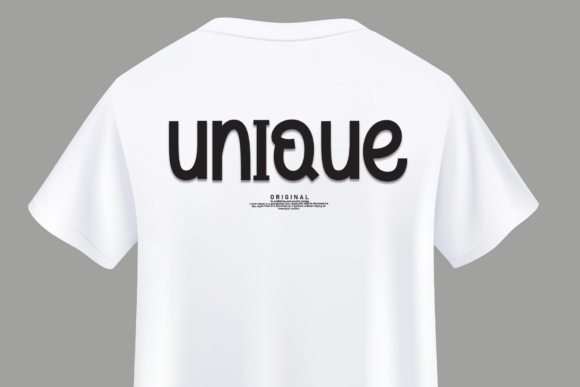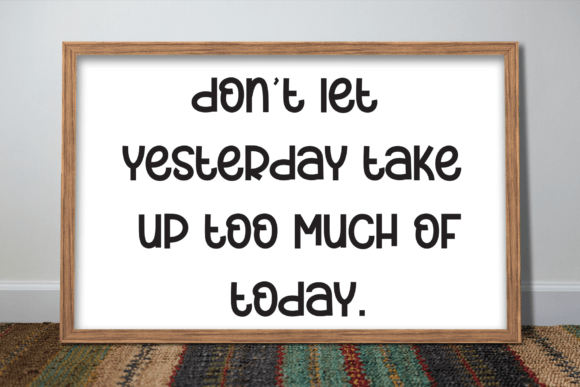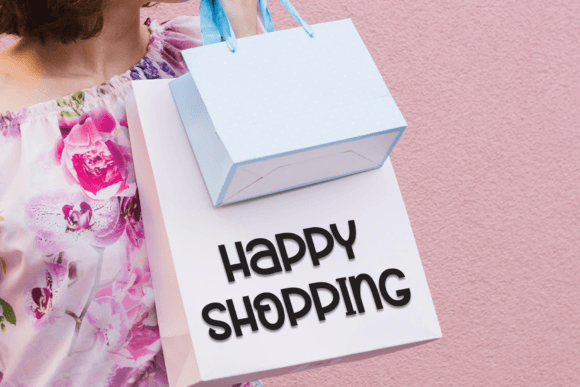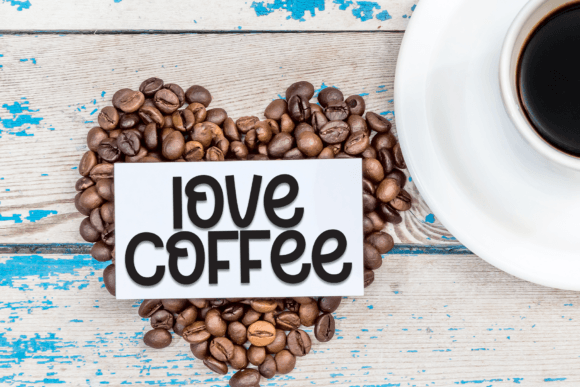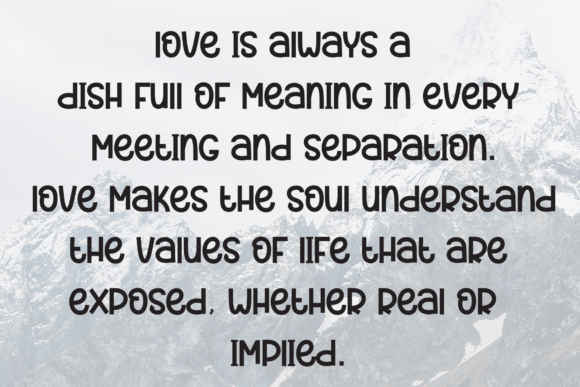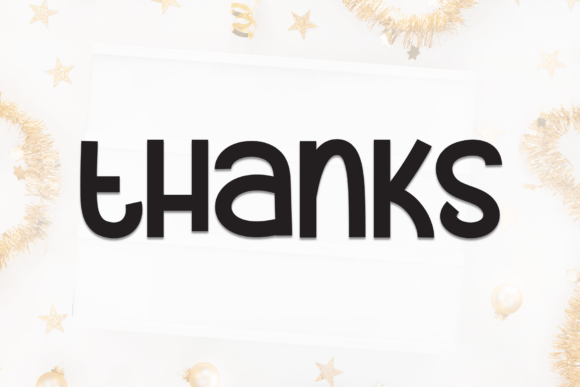
Introducing the Happy New Year Font: A Charming Handwritten Display Font
Are you looking for a font that embodies the spirit of joy and friendliness? Look no further than the Happy New Year Font, a charming and whimsical handwritten display font that’s perfect for adding a touch of warmth and personality to your designs. With its delightful, fun essence, this font is ideal for crafting heartwarming wedding invitations, heartening cards, and any other design project that needs a zest of joy.
A Font that Brings Storytelling to Life
The Happy New Year Font is more than just a collection of letters – it’s a way to tell a story. Each letter is lovingly scripted to create an authentic, intimate feel that’s sure to captivate your audience. Whether you’re designing a wedding invitation, a greeting card, or a social media post, this font will help you connect with your audience on a deeper level. Its whimsical and playful design makes it perfect for projects that require a personal touch.
As a designer or crafter, you’re always on the lookout for fonts that can help you create unique and engaging designs. The Happy New Year Font is a versatile font that can be used for a wide range of projects, from digital designs to print materials. Its friendly and approachable design makes it perfect for:
Key Features of the Happy New Year Font
So what makes the Happy New Year Font so special? Here are some of its key features:
- Handwritten and whimsical design
- Delightful and fun essence
- Perfect for heartwarming and intimate designs
- Lovingly scripted letters for an authentic feel
- Versatile and suitable for a wide range of projects
Why Choose the Happy New Year Font?
With so many fonts available, why choose the Happy New Year Font? Here are just a few reasons:
- Unique and eye-catching design
- Evokes feelings of joy and friendliness
- Perfect for designers and crafters who want to add a personal touch to their designs
Tips for Using the Happy New Year Font
To get the most out of the Happy New Year Font, here are a few tips:
- Use it for headlines and titles to add a touch of personality
- Pair it with other fonts to create a unique and interesting design
- Use it for body text to create a friendly and approachable tone
The Happy New Year Font is a charming and whimsical handwritten display font that’s perfect for designers and crafters who want to add a touch of joy and friendliness to their designs. With its delightful, fun essence and lovingly scripted letters, this font is sure to captivate your audience and bring your designs to life. Whether you’re creating wedding invitations, greeting cards, or social media posts, this font is sure to be a hit.